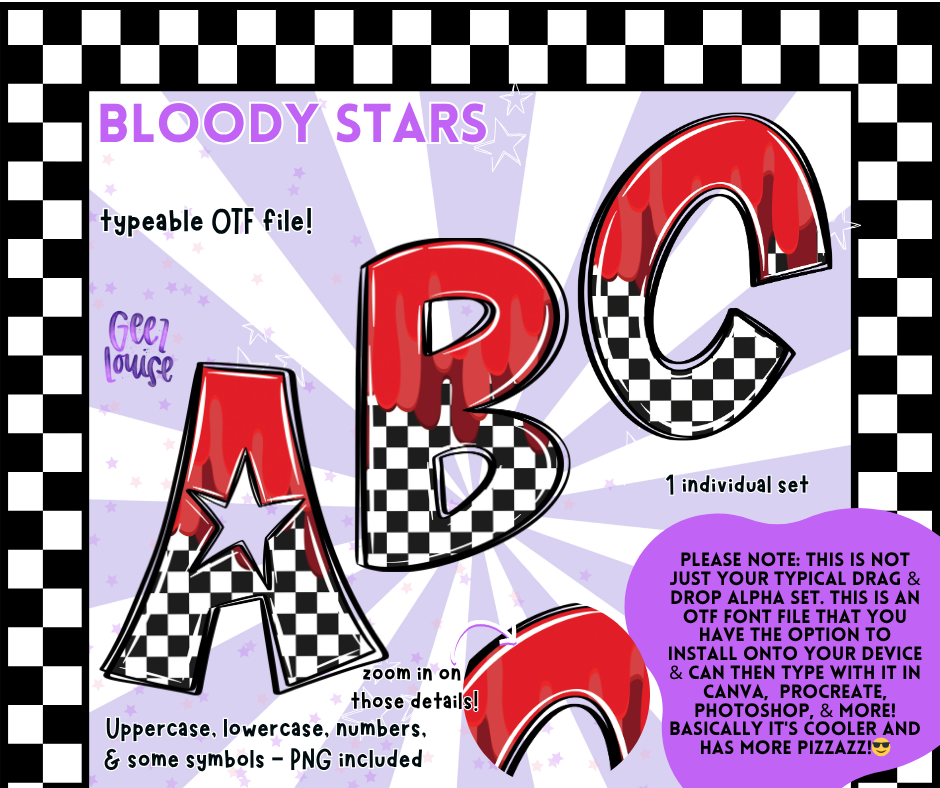
Bloody Stars Alpha – Dripping Star Cutout OTF Font & PNG Set
⭐🩸 Creepy meets cosmic.
The Bloody Stars Alpha delivers bold checkered letters with dripping “blood” accents and star cutouts for a spooky-meets-galaxy vibe.
This set is both typeable OTF font and a PNG pack, so you can design your way. Perfect for Halloween graphics, horror merch, edgy quotes, and standout social media posts.